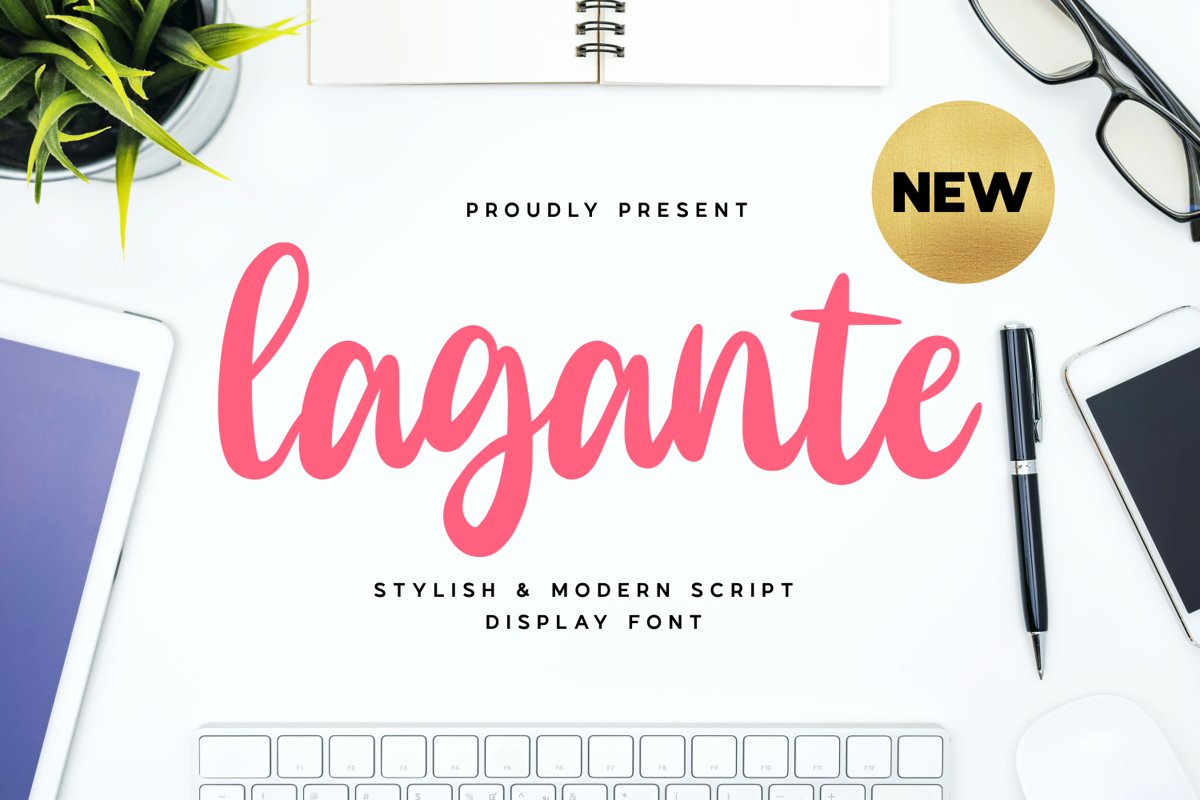
Lagante is a script font come with modern themes. This font create with modern brush to make good shape. It matches applies in some designs such as the logotype, brand, packaging, quotes, poster, shirt, book, wedding invitation and more custom design. The features uppercase, lowercase, numeral, punctuation & symbol, multilingual support, PUA encoded (fully accessible without additional design software).